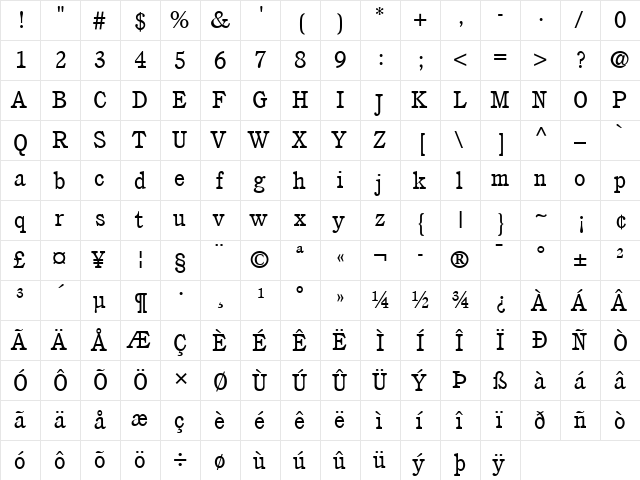
Cushing LT Book Regular
Design Context for Cushing LT Book Typeface
Cushing LT Book is a composed and adaptable typeface that performs quietly and consistently across a wide range of design contexts. Its slender proportions lend an understated elegance to any composition.
Pro Tip: Use Cushing LT Book in both headline and body roles to test its range before committing to a single application.